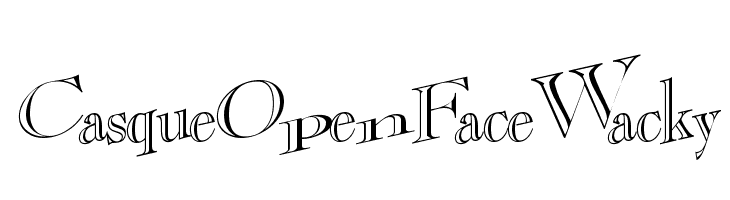
A decorative inline font with Art Deco influences and high contrast strokes.
A modern, continuous line font with a geometric and futuristic style.
A bold, jagged font with a dynamic, distressed appearance.
A bold, gothic-inspired font with sharp, angular edges and intricate details.
A modern, artistic font with a 3D effect and geometric design.
A bold, geometric font with Art Deco influences and strong architectural elements.
A bold, geometric font with a futuristic and architectural style.
A high-contrast, italic serif font with dynamic and elegant strokes.
A bold, outlined font with a fantasy-inspired, geometric style.
A decorative, gothic-inspired font with sharp, angular edges and bold outlines.
A bold, geometric font with angular shapes and thick outlines.
A bold, geometric font with Art Deco influences and high contrast.
A bold, futuristic font with sharp, elongated spikes and angular design.
A bold, decorative font with a three-dimensional effect and geometric influence.
An ornate mosaic-style font with detailed uppercase letters in square frames.
A modern, outline-style font with geometric and artistic characteristics.
A bold, geometric font with sharp angles and a modern aesthetic.
A bold, geometric outline font with clean lines and sharp angles.
A bold, playful font with a mix of solid and outlined elements, perfect for eye-catching designs.